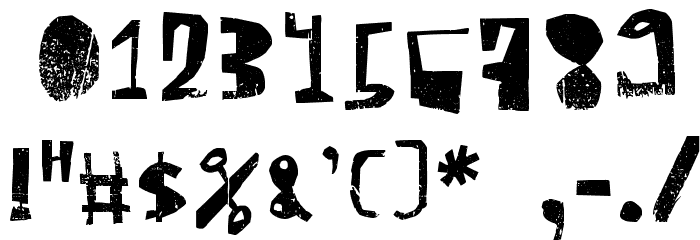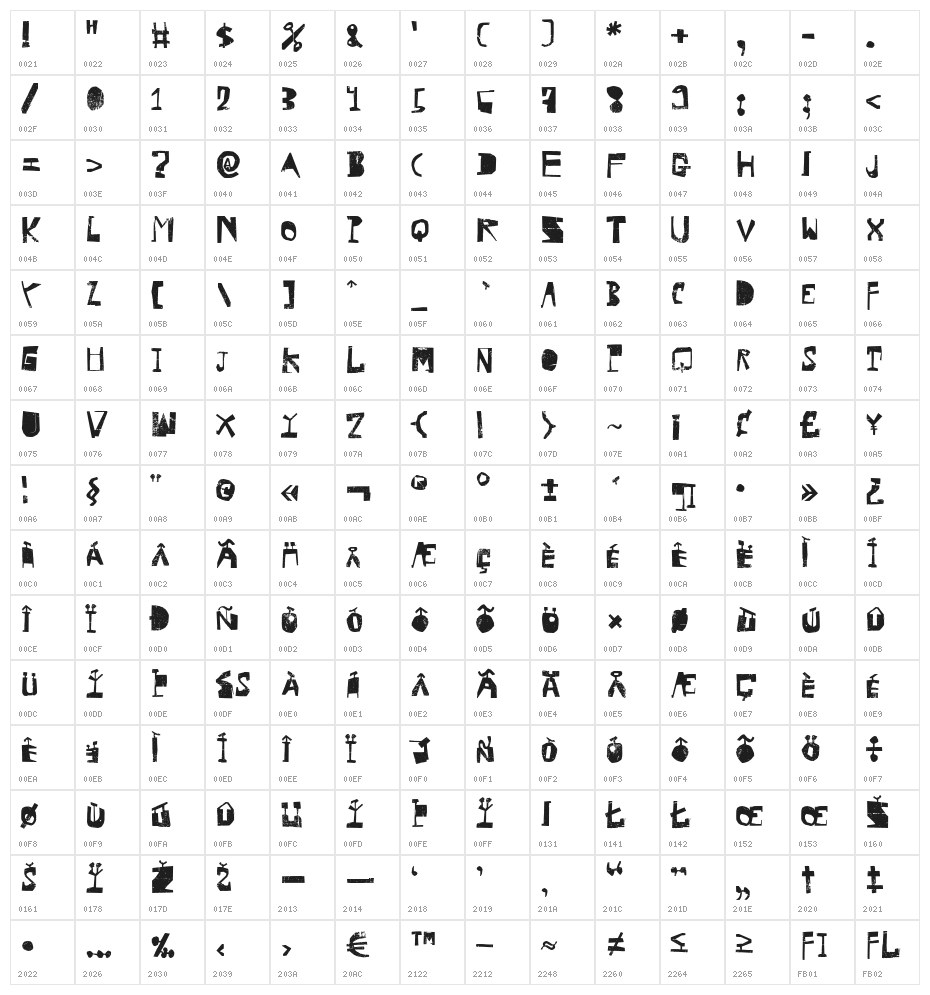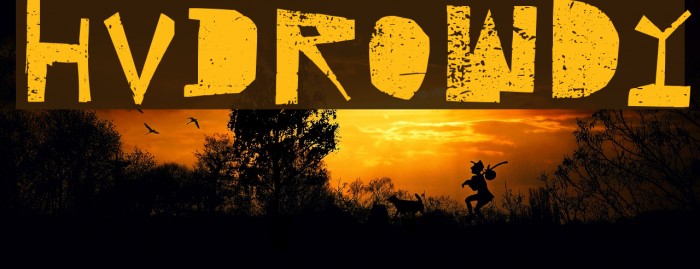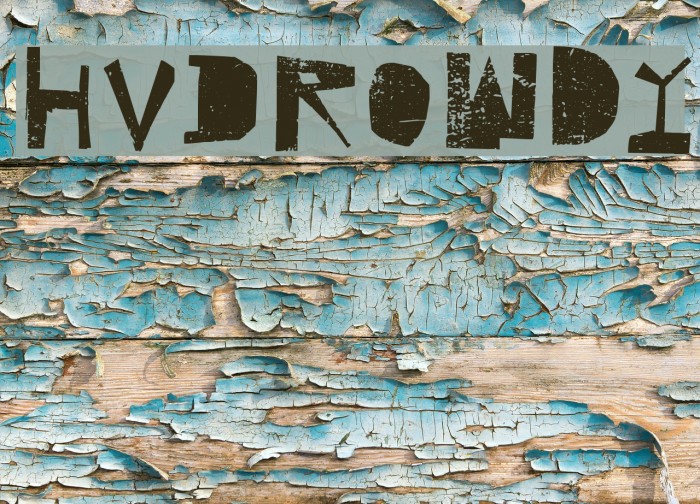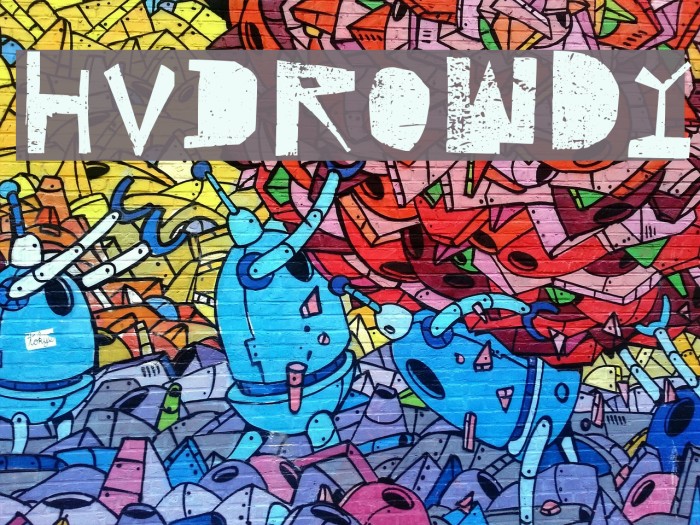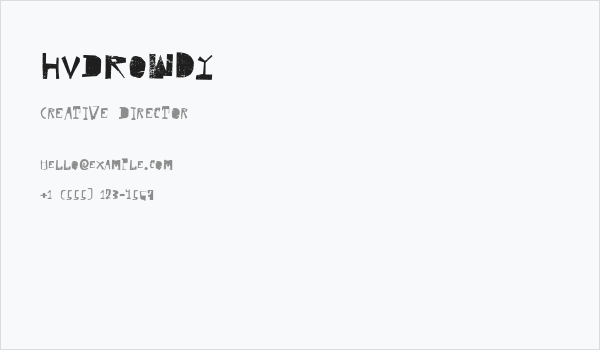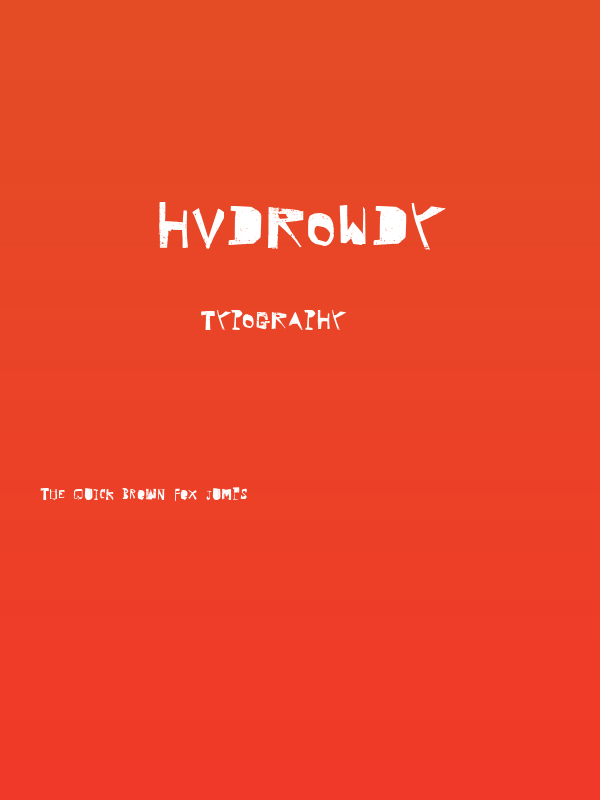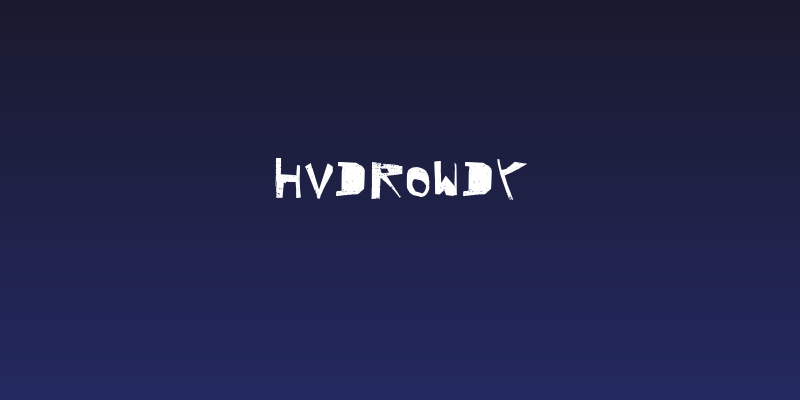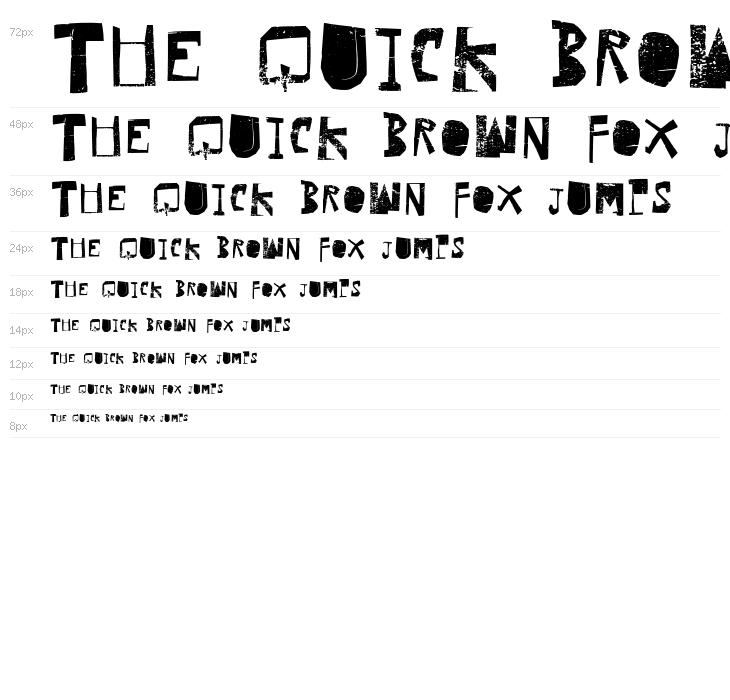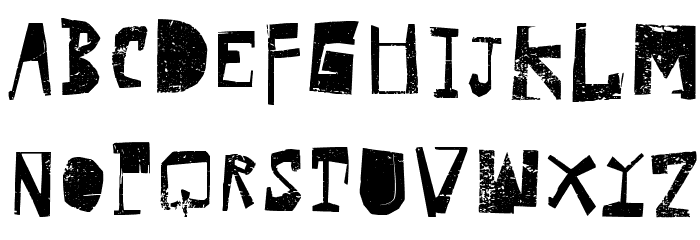
HVDRowdy Font
HVDRowdy Description
This font features a bold and distressed style, characterized by its rough, textured appearance. Each letter has a unique, hand-crafted look, giving it a rebellious and edgy feel. The uppercase and lowercase letters maintain a consistent ruggedness, with irregular edges and a slightly chaotic structure. Numbers and special characters follow the same aesthetic, making the font ideal for designs that require a raw and energetic vibe. The overall impression is one of boldness and individuality, perfect for projects that aim to stand out.
| Overall Style | Edgy, Rebellious, Distressed |
| Use Case | Headlines, Posters, Album Covers |
| Proposed Projects | Ideal for music album covers, posters, street art designs, and any project needing a bold, edgy aesthetic. |